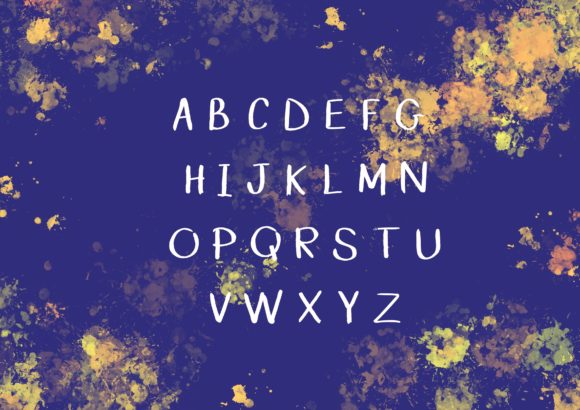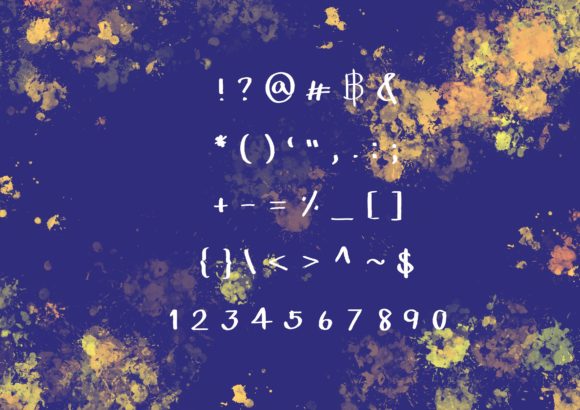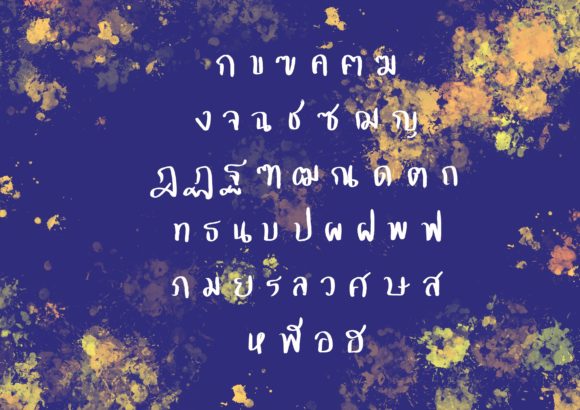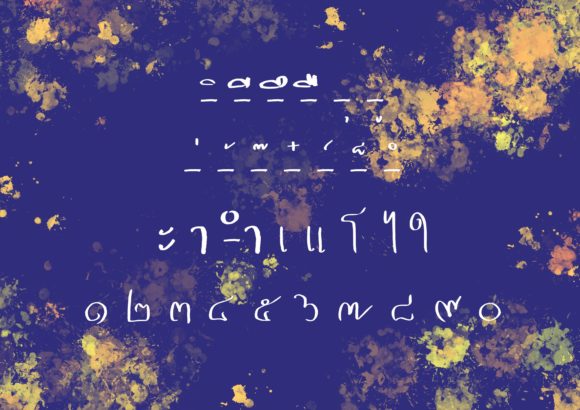
Introduction to Little Flick Font
Little Flick is a cute and simple handwritten font that can be used for all chalkboard quotes or teaching material.
Its authentic look and feel will add a personal and realistic feel to your designs .
Key Features of Little Flick Font
Why Choose Little Flick Font?